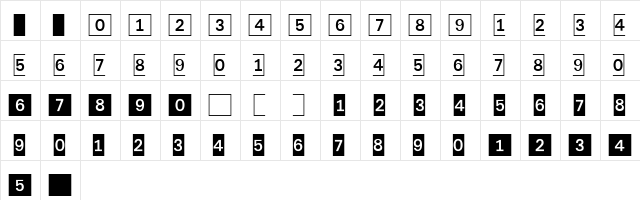
DecoNumbers LH Square Regular
Design Context for DecoNumbers LH Square Typeface
DecoNumbers LH Square is a composed and adaptable typeface that performs quietly and consistently across a wide range of design contexts.